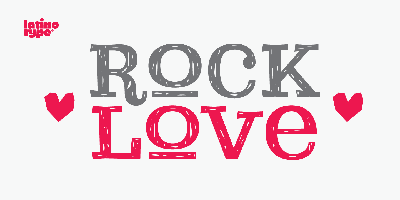
Nambya Free Download
Nambya Font Free Download
If you are in search of a bold, eye-catching typeface that brings a modern twist to your designs, Nambya Font Free Download is the ideal choice. This font features strong lines, contemporary styling, and a creative edge that makes it perfect for branding, advertising, headlines, and promotional materials. With Nambya Font, your projects will gain an instant boost in style and professionalism.
Nambya Font Free Download is designed to be highly versatile, fitting seamlessly into a variety of design projects. Its modern aesthetic and powerful presence make it especially effective for digital platforms, posters, logos, and packaging. Whether you're looking to create a strong visual identity or simply want to experiment with fresh typography, Nambya Font is a must-have.